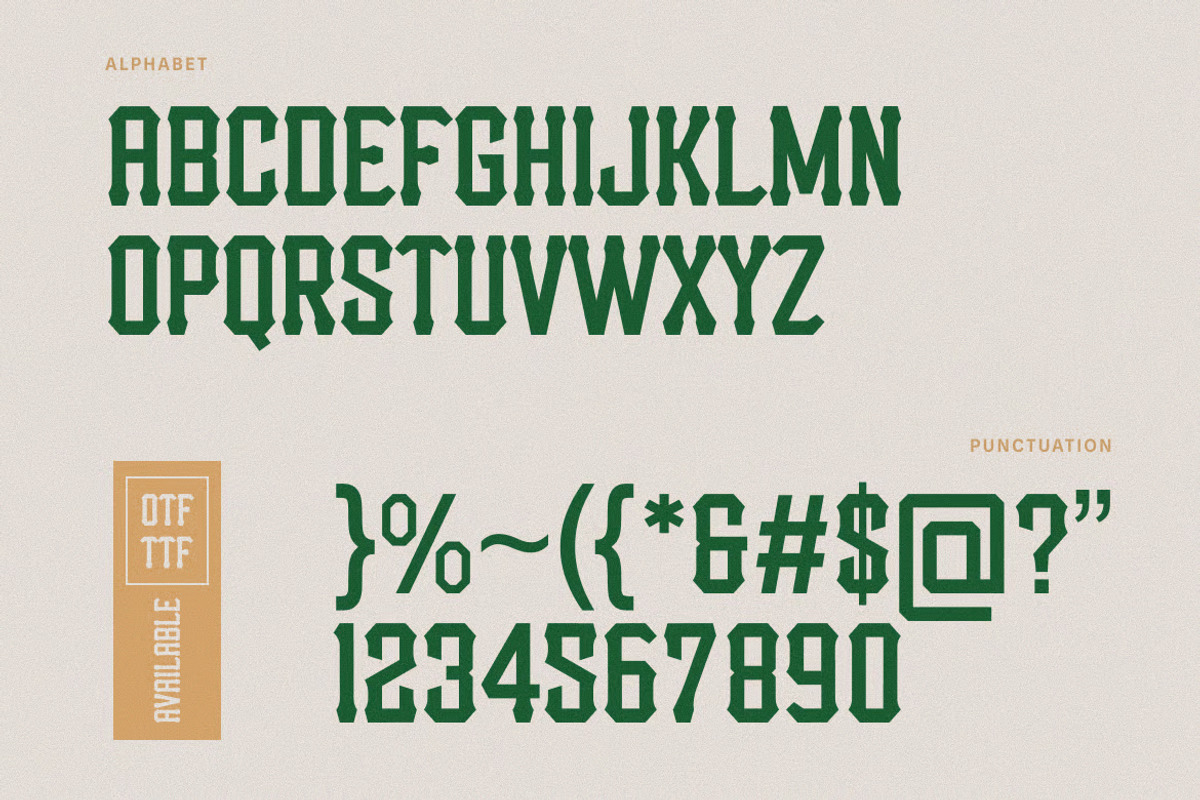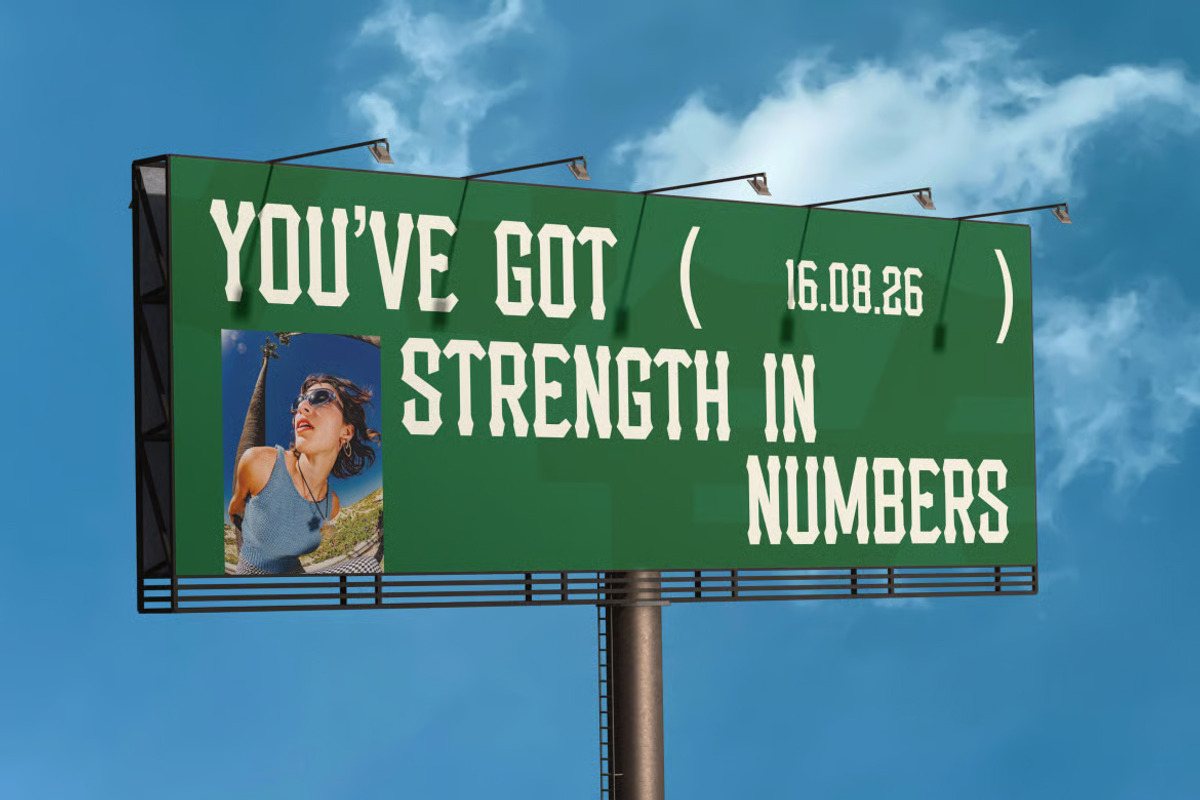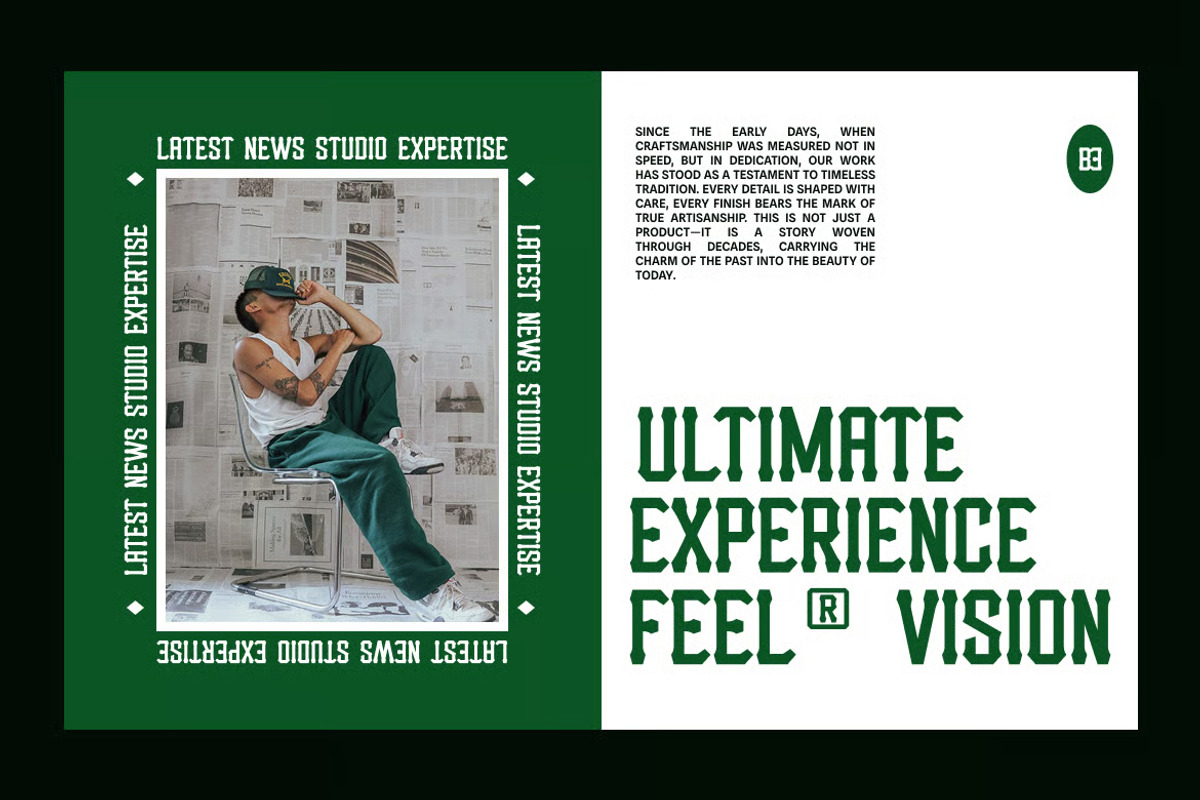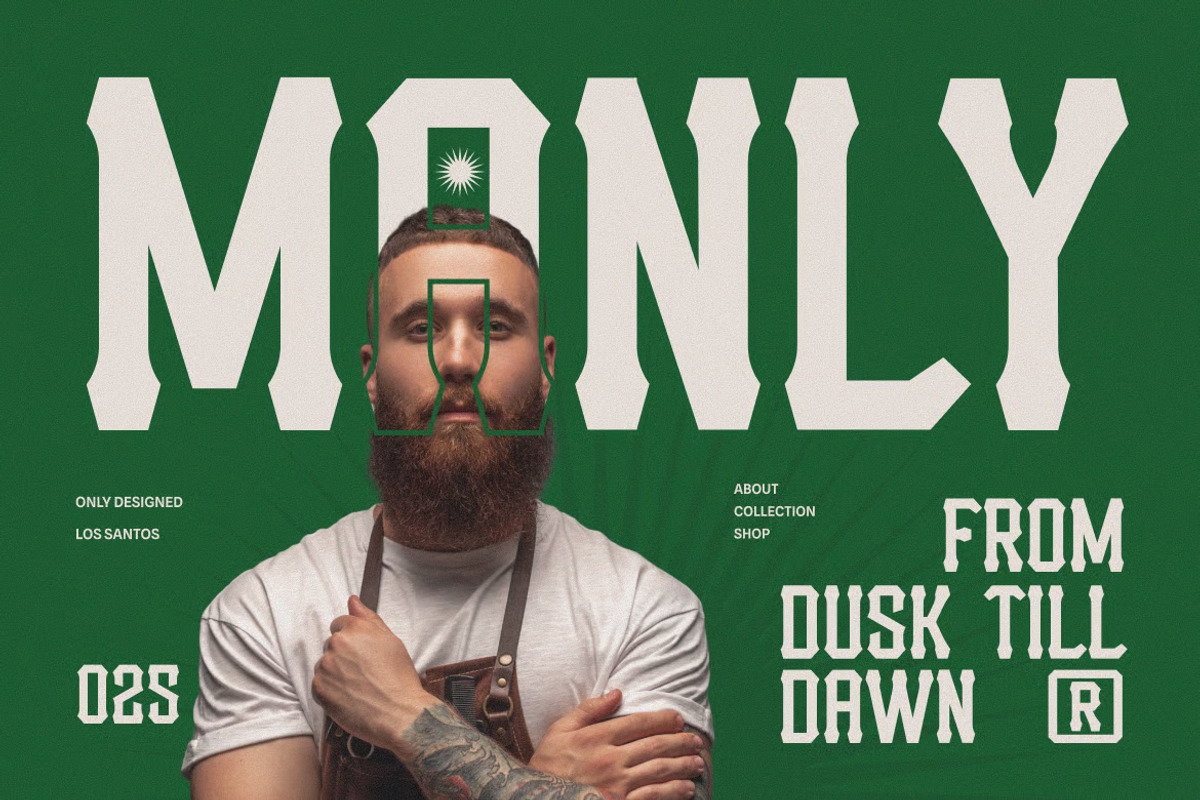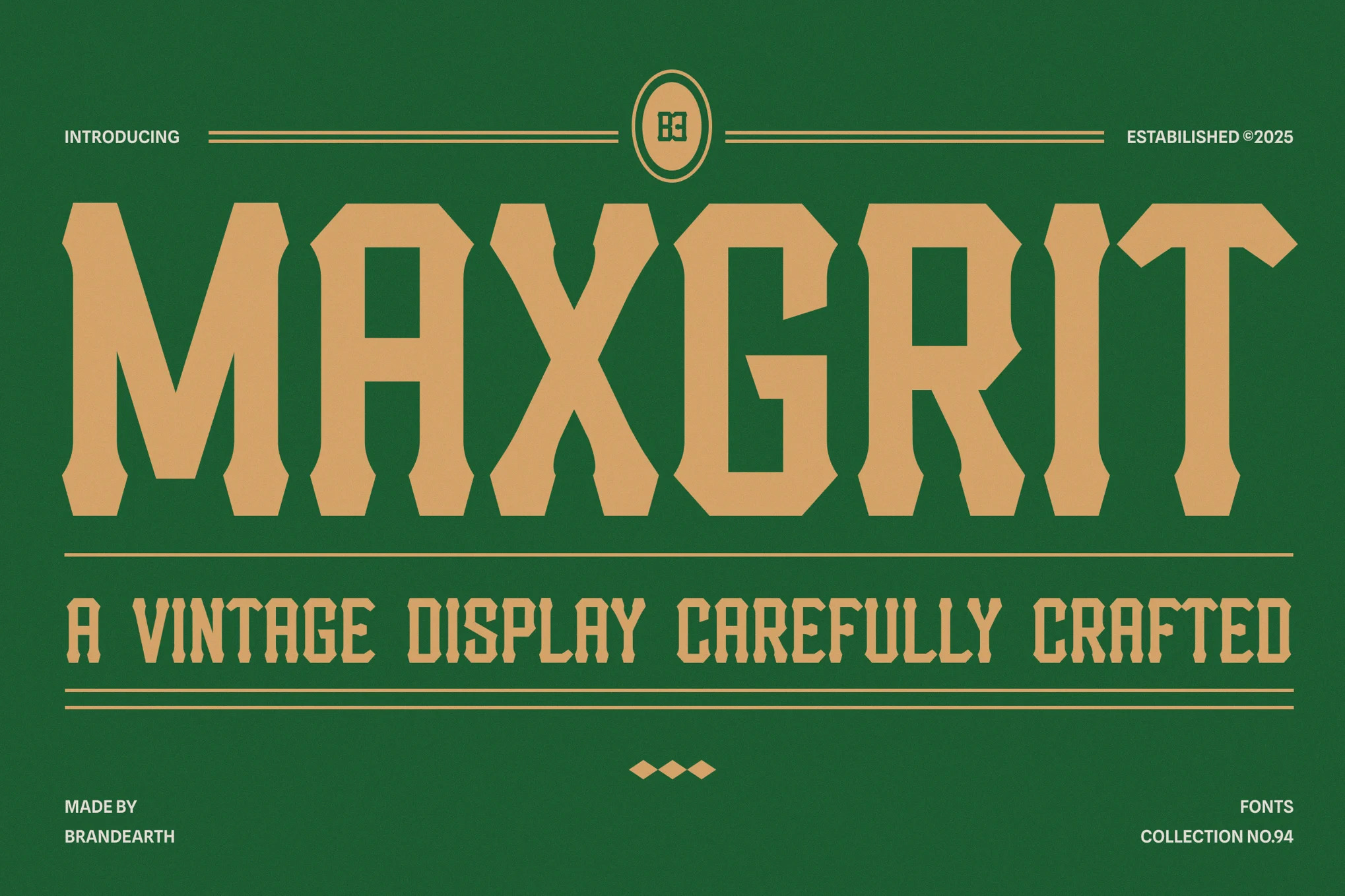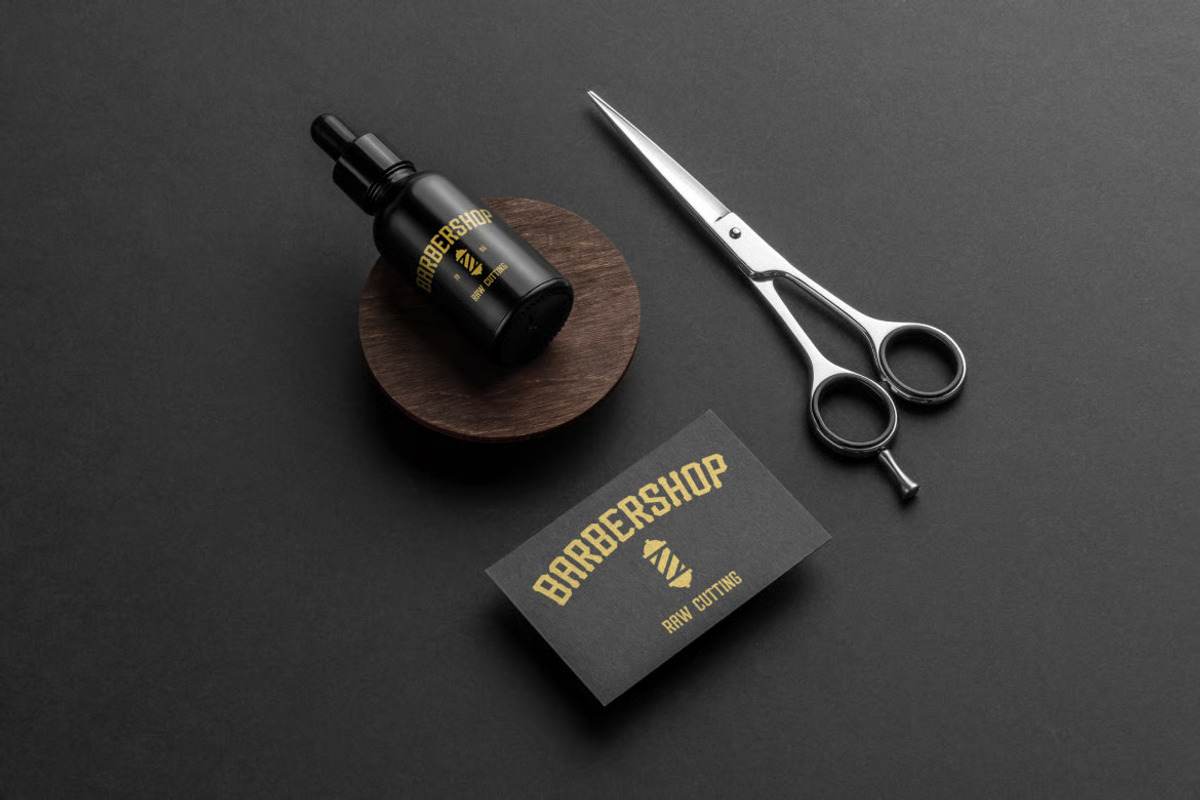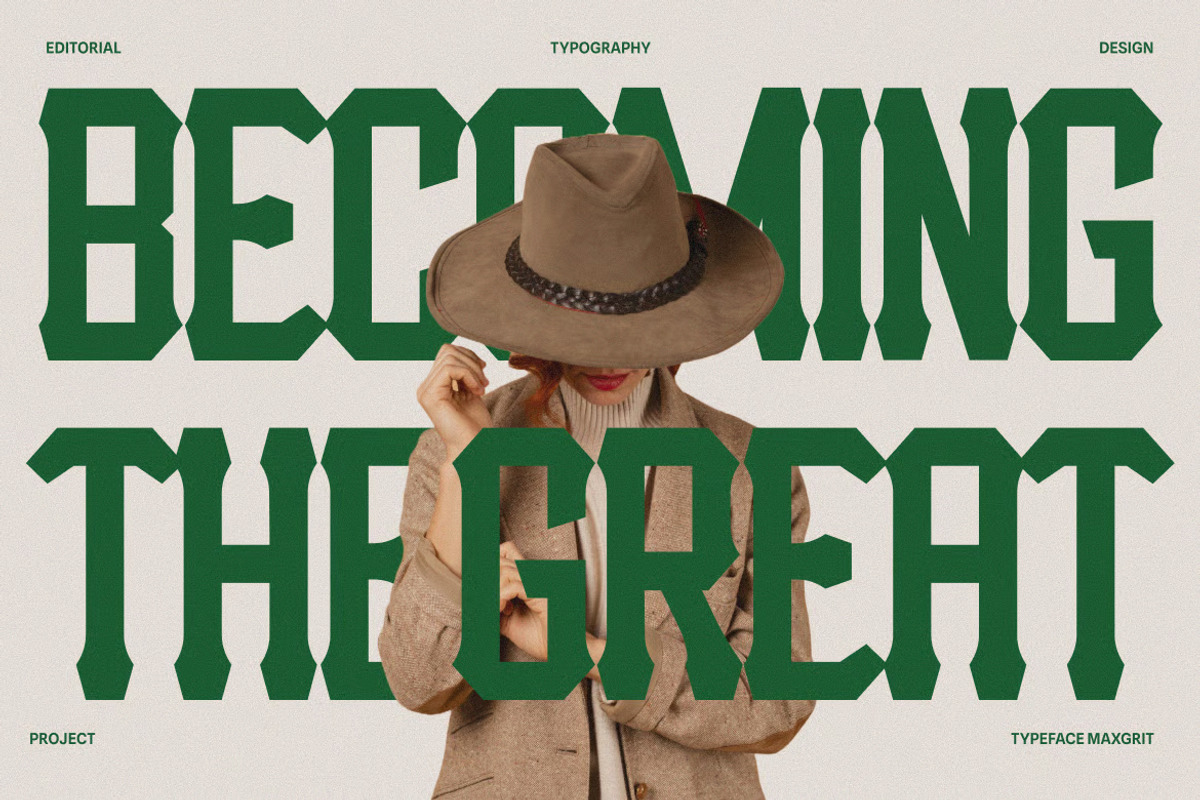
Maxgrit - Bold Vintage Display Font
Maxgrit is a bold vintage display font designed with sharp geometric cuts and a strong, masculine presence. Built to command attention, it captures the rugged spirit of retro typography while staying rooted in clean, contemporary structure. Its energy is powerful, confident, and impact-driven—perfect for those looking to give their brand a raw, authentic edge with a modern finish.
The letterforms in Maxgrit are carefully constructed with slab-like edges, sharp angles, and a highly structured rhythm that gives the typeface a bold and commanding appearance. It resembles transitional serifs but is reimagined with a blocky, modernized execution—making it ideal for sports branding, posters, packaging, and signage.
With its rugged geometry and confident weight, Maxgrit bridges the gap between vintage grit and contemporary clarity. It provides a strong visual statement while remaining highly legible, making it perfect for advertising, editorial layouts, merchandise design, and bold branding campaigns.